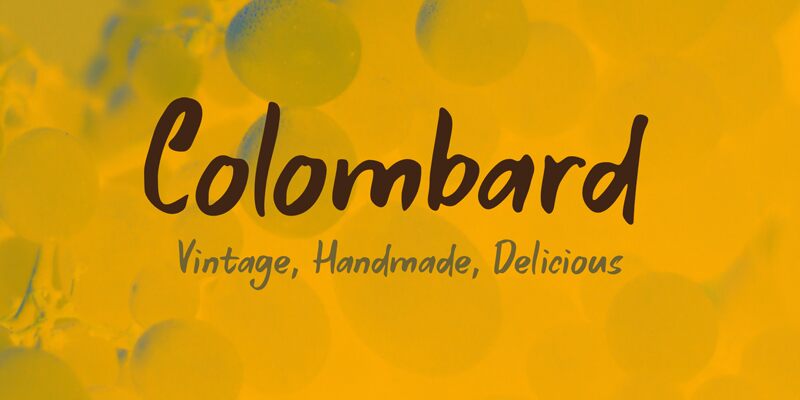
Colombard DEMO Regular
Colombard is a stunning semi-condensed vintage handwritten font designed by D K. With its unique style and charming character, this font is perfect for any project that needs a touch of nostalgic elegance. Whether it's designing wedding invitations, creating stunning logos or crafting beautiful social media graphics, Colombard will help you achieve the look and feel you desire. Its semi-bold typeface creates an air of confidence and authority, making it ideal for branding materials such as packaging or labels. Let Colombard elevate your designs and bring them to life with its timeless appeal and refined aesthetic.
David Kerkhoff